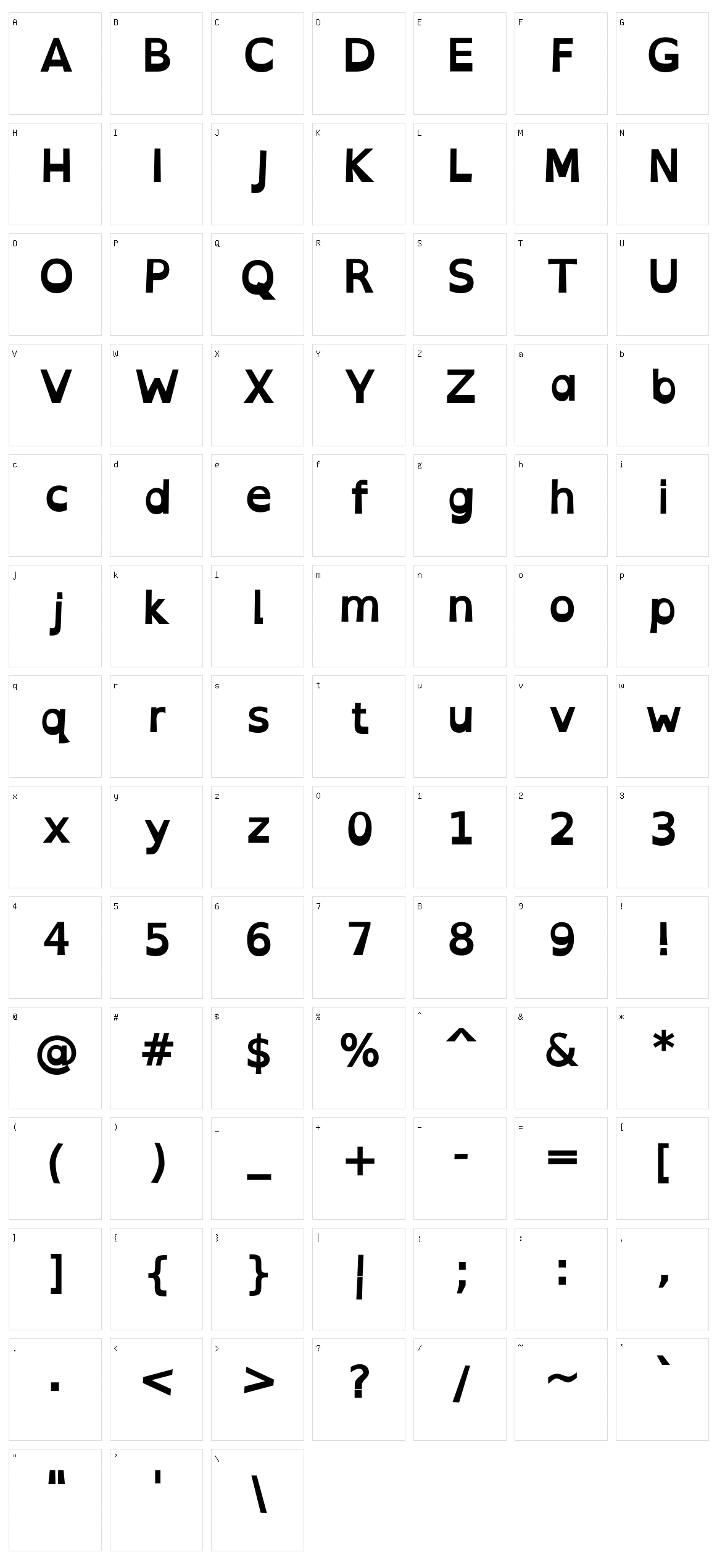
Typeface/font to help readability, and help readability for some of the symptoms of dyslexia.
Your brain can sometimes do funny things to letters. OpenDyslexic tries to help prevent some of these things from happening. Letters have heavy weighted bottoms to provide an indication of orientation to make it more difficult to confuse with other similar letters. Consistently weighted bottoms can also help reenforce the line of text. The unique shapes of each letter can help prevent flipping and swapping.
The italic style for OpenDyslexic has been crafted still be able to be used for emphasis while still being readable.